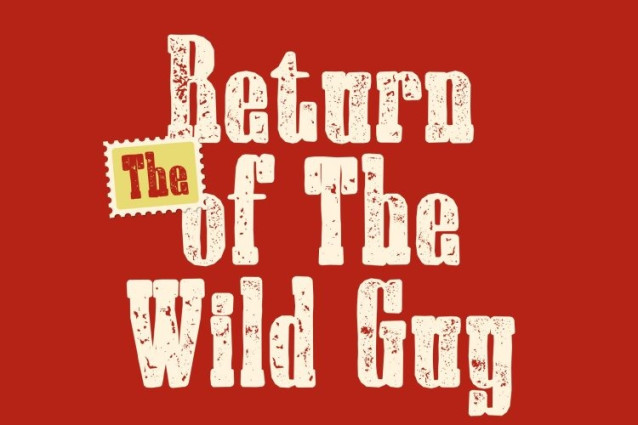
CS Boxing Stamp Font
CS Boxing Stamp Font – This takes its bold slab serif foundation and enhances it with a distressed stamped texture, adding grit and authentic vintage character. Inspired by classic Americana, old-school boxing posters, and Western typography, this version feels even more raw and timeworn like ink pressed onto aged paper. The thick, blocky letterforms now carry subtle imperfections that amplify their nostalgic charm.
Sturdy Letterforms with Gritty Personality
The strong, well-defined serifs and solid proportions remain commanding and confident, while the stamped detailing introduces a rugged, handcrafted feel. Slight ink variations and roughened edges give the font depth and realism, reinforcing its tough, masculine aesthetic without sacrificing readability.
Perfect for Western and Heritage-Inspired Designs
This font shines in Western-themed branding, vintage posters, retro packaging, barbershop logos, whiskey labels, and heritage-style merchandise. Its textured finish evokes the atmosphere of old saloons, boxing arenas, rodeos, and historical advertisements making every design feel rich with story and tradition.
Nostalgic Power with Contemporary Versatility
Though rooted in classic design, adapts seamlessly to modern retro trends. It bridges past and present with bold authority, offering designers a typeface that feels both historically grounded and visually striking for today’s creative landscape.